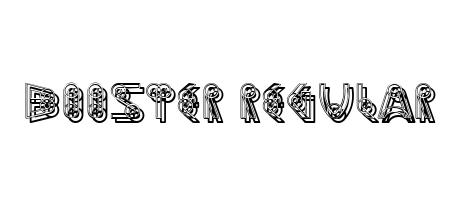
Booster
Booster Regular: A bold, stylized font with a distinct three-dimensional quality. Each letter is intricately designed, appearing layered or extruded, with decorative flourishes adding an ornate, almost Celtic-inspired feel. The overall effect is strong, eye-catching, and slightly whimsical.